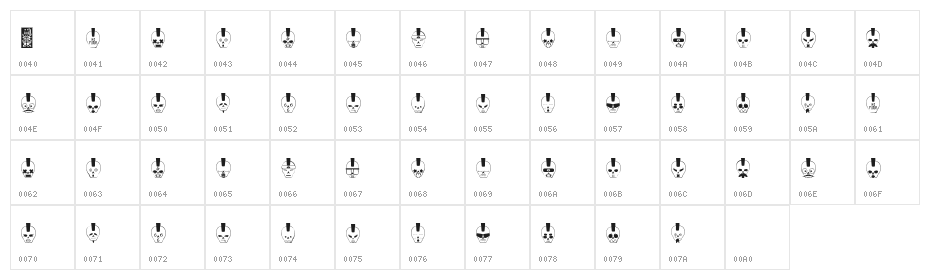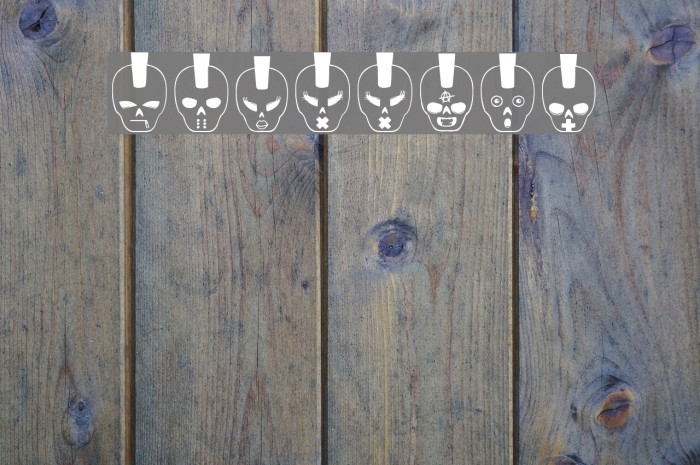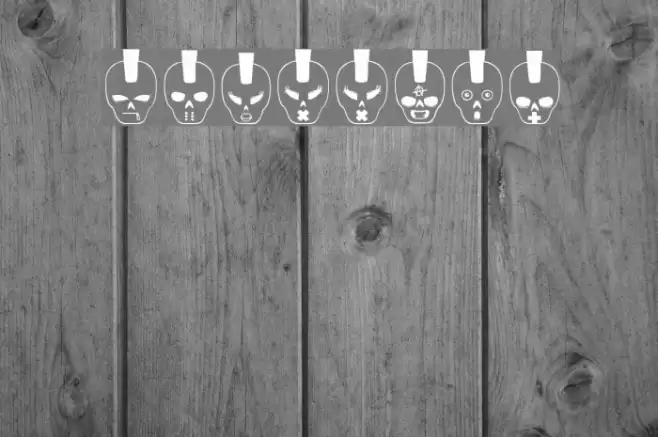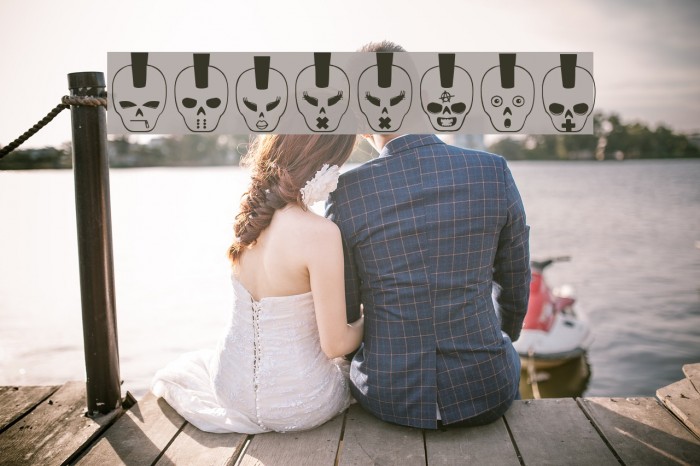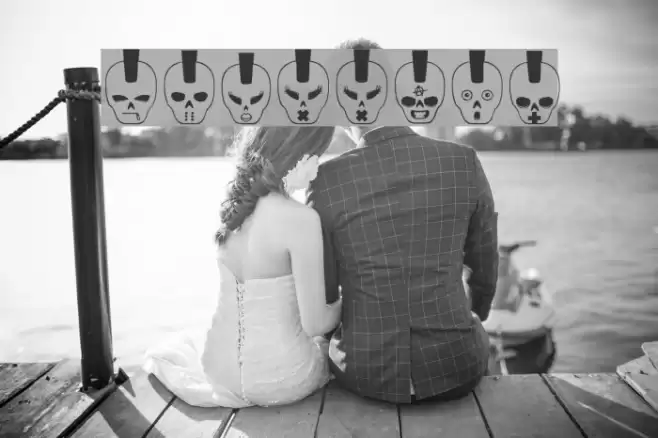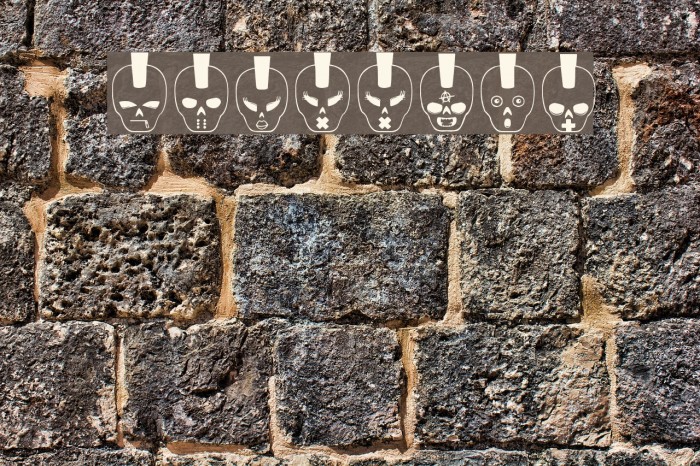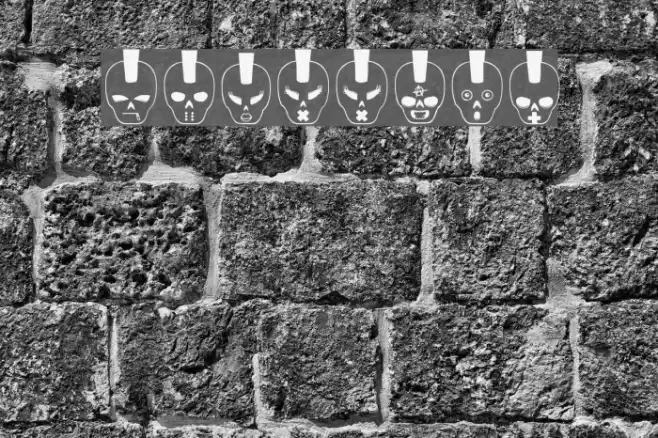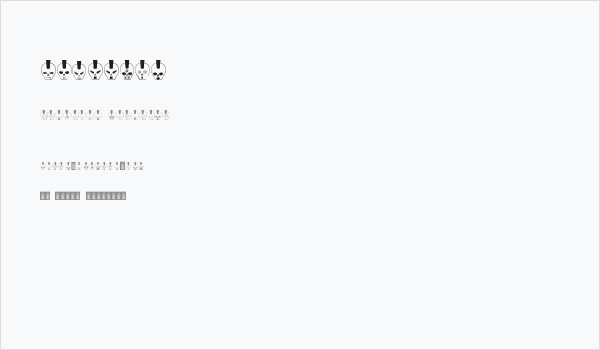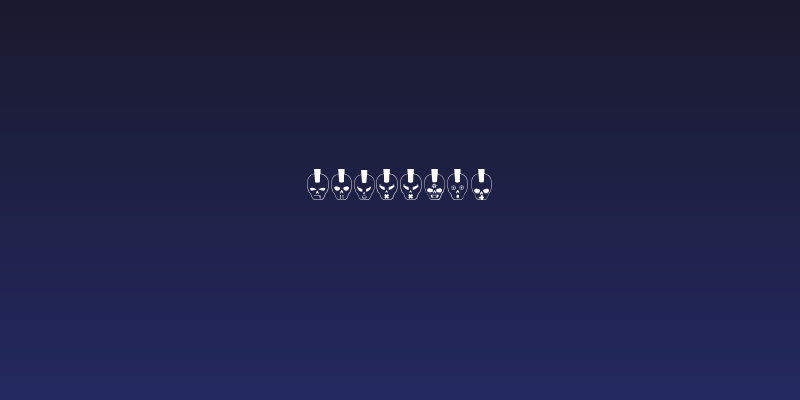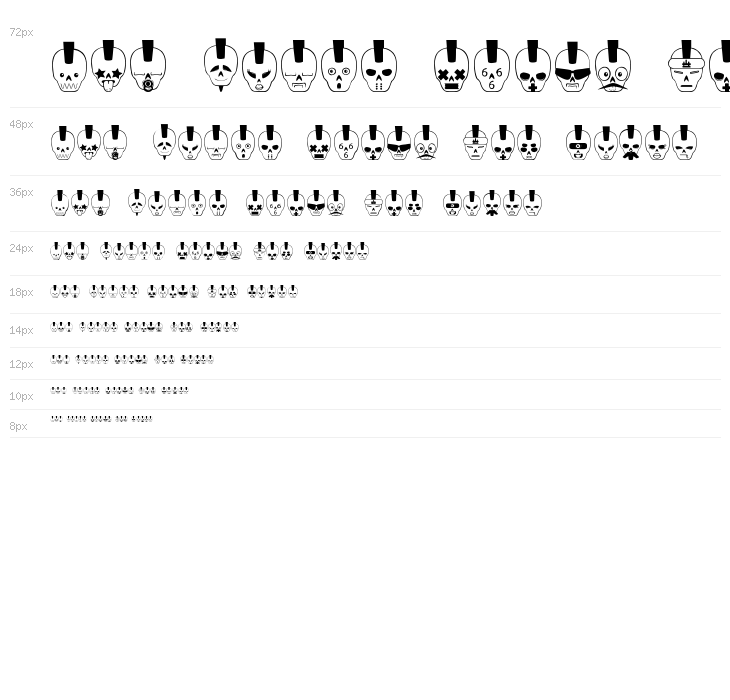
skulldco Font
skulldco Description
This is not a traditional font but rather a collection of decorative skull icons, each with unique facial expressions and accessories. The designs are bold and graphic, featuring elements like mohawks, sunglasses, and various facial markings. These icons are highly stylized, with a punk or rebellious aesthetic, making them suitable for creative and edgy design projects. The icons are consistent in style, with a monochromatic color scheme that enhances their striking appearance.
Proposed ProjectsIdeal for use in graphic design projects such as posters, album covers, or merchandise that require a bold and edgy look.